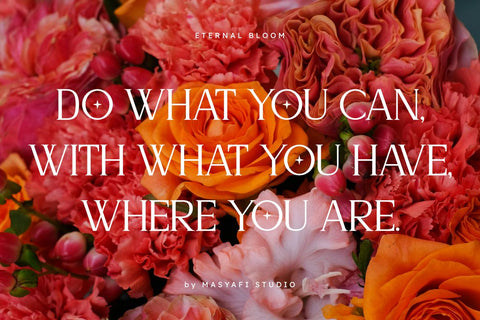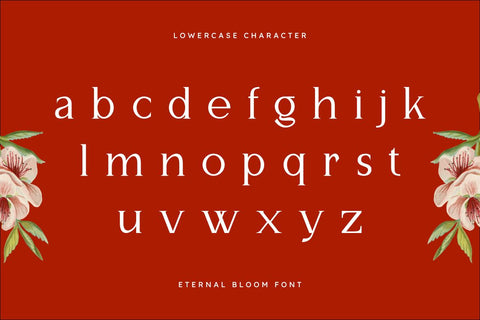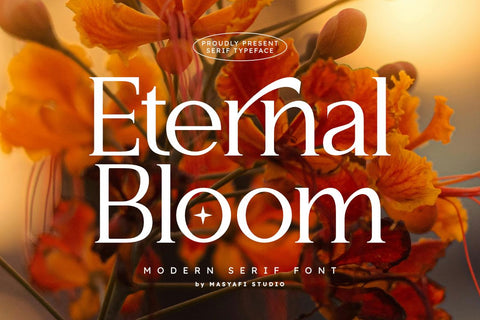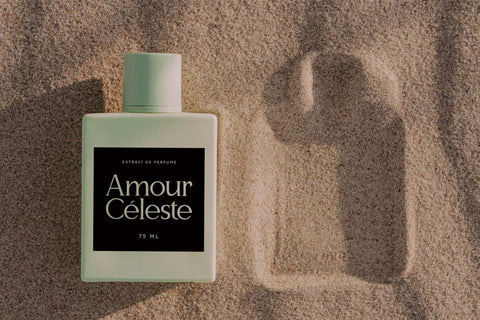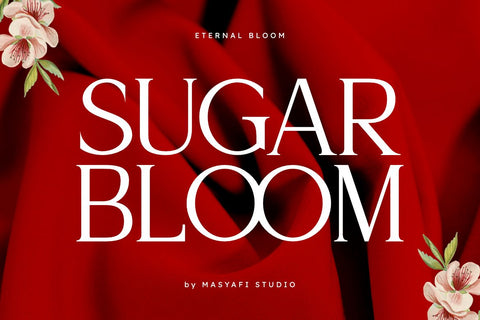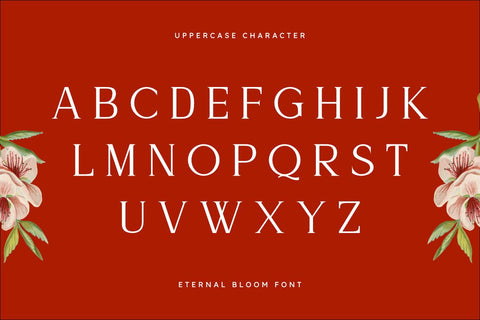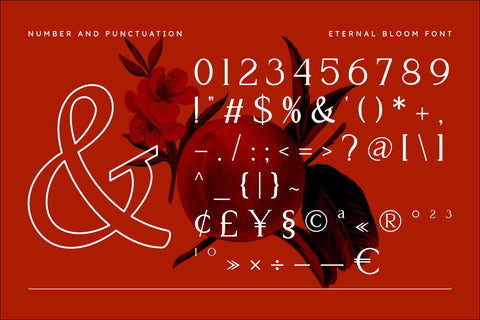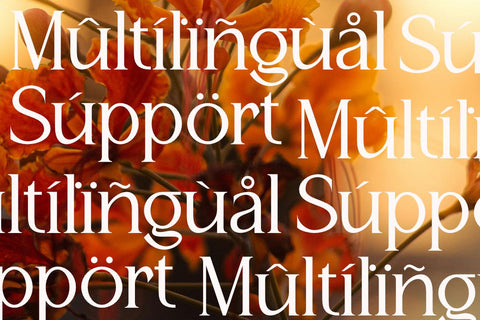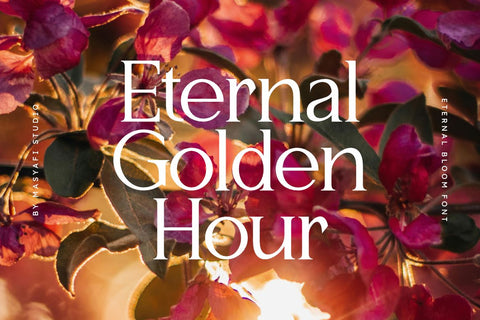
Eternal Bloom - Modern Serif Font
introducing our new Eternal Bloom Modern Serif with Elegant Style this is perfect for creative endeavor, chic, lifestyle design such as logos, advertisements, watermark on photography, stationery, branding project, display and magazine, invitation, corporate brand, product design, label, business project and many other project with elegant touch.